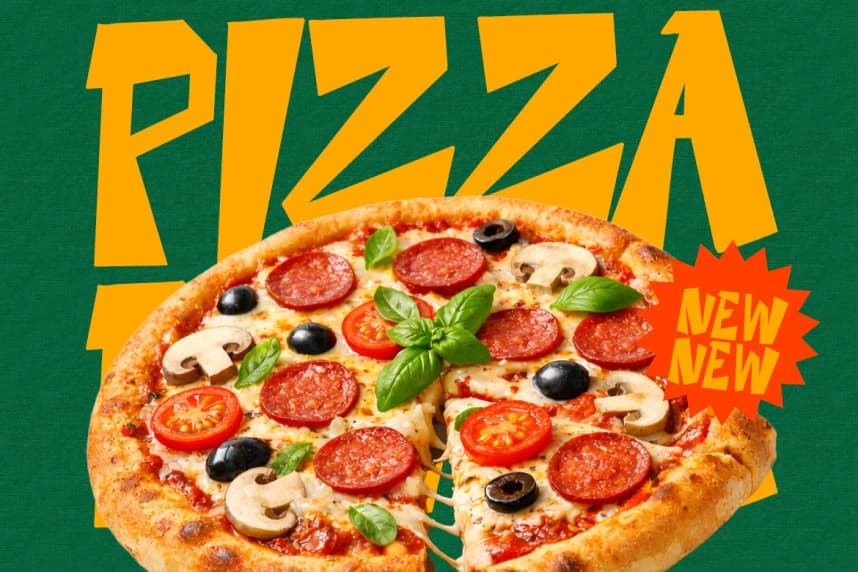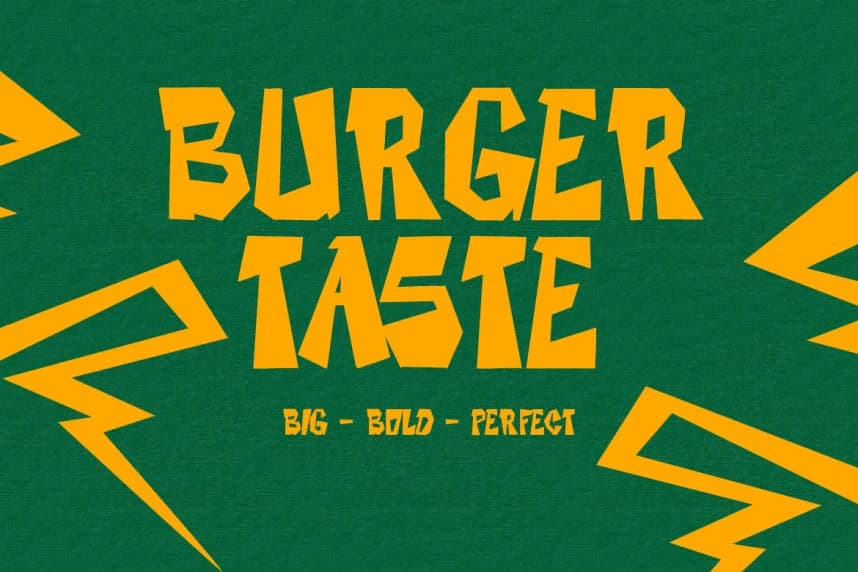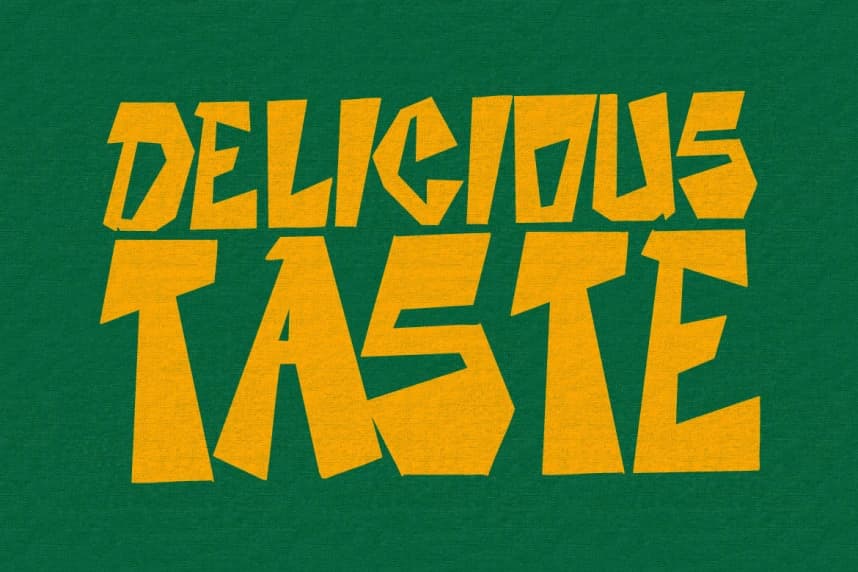
Stong Moca Font
Stong Moca Font - This font features heavy, irregular letterforms with sharp, jagged edges that evoke a hand-cut or primitive aesthetic. The strokes are solid and thick